10 Best Monogram Fonts for Elegant and Premium Design Projects
Monogram design has long been associated with sophistication, exclusivity, and personal identity. From luxury fashion brands to wedding invitations, monograms offer a timeless way to present initials with style and meaning. At the center of every great monogram is the font itself.
Choosing the best monogram fonts is not just about aesthetics. It’s about selecting typography that communicates elegance, reinforces branding, and creates a memorable visual impression.
In this article, we’ll explore ten carefully selected monogram fonts that can elevate your design projects, whether you’re working on logos, invitations, or personal branding.
Why Monogram Fonts Matter in Design
Monograms are more than decorative elements. They serve as a visual signature. Because they often consist of just one to three letters, every detail matters.
Here are the key reasons why font selection is crucial:
1. Strong Visual Identity
A monogram must stand out while remaining recognizable. The font determines how distinctive and memorable it is.
2. Emotional Tone
Fonts convey mood. A script font feels romantic, while a serif font suggests authority and tradition.
3. Versatility
Monograms are used across multiple mediums, from print to digital, so the font must perform well in different sizes and formats.
10 Best Monogram Fonts (Curated Selection)
Here are ten monogram fonts that balance elegance, readability, and versatility.
1. Royal Display Monogram – Bold and Timeless
This font embodies classic elegance with strong, defined lines. It’s designed to create a powerful and formal impression.
Best for:
- Corporate logos
- Luxury branding
- Formal monograms
Its bold structure ensures visibility while maintaining a refined aesthetic.
2. Gilded Glint Elegant Serif – Romantic and Refined
Gilded Glint offers a delicate balance between elegance and artistic flair. Its serif details add a romantic tone.
Best for:
- Wedding invitations
- Event branding
- Romantic designs
It’s ideal when you want to create a soft yet premium visual identity.
3. Metrolight Script – Soft and Approachable
This script font feels warm and personal while remaining highly readable. It’s a great option for friendly, human-centered branding.
Best for:
- Personal brands
- Handmade products
- Lifestyle logos
Its flowing lines give a handcrafted feel without losing clarity.
4. Carnival Street Rough Classic – Decorative and Luxurious
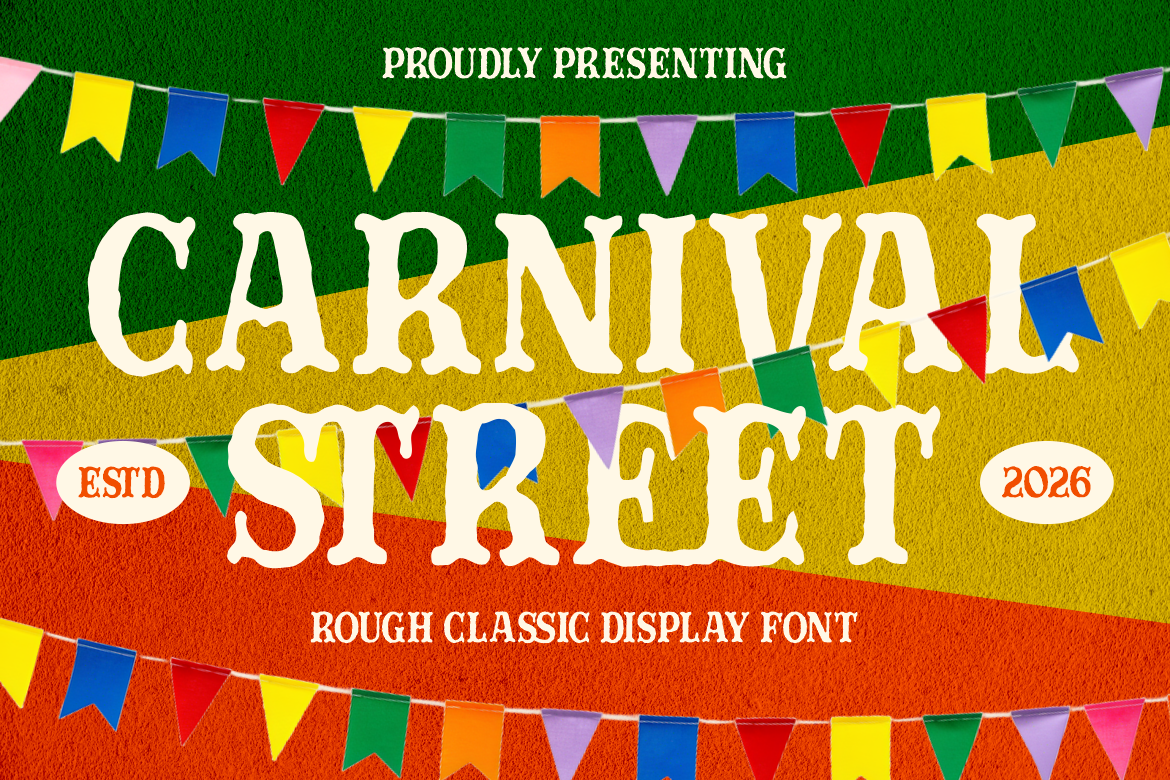
Carnival Street brings a decorative, handwritten-like aesthetic that adds richness to any design.
Best for:
- Certificates
- Invitations
- Artistic branding
It works especially well when you want a textured, expressive monogram.
5. Logoza – Artistic with a Classic Touch
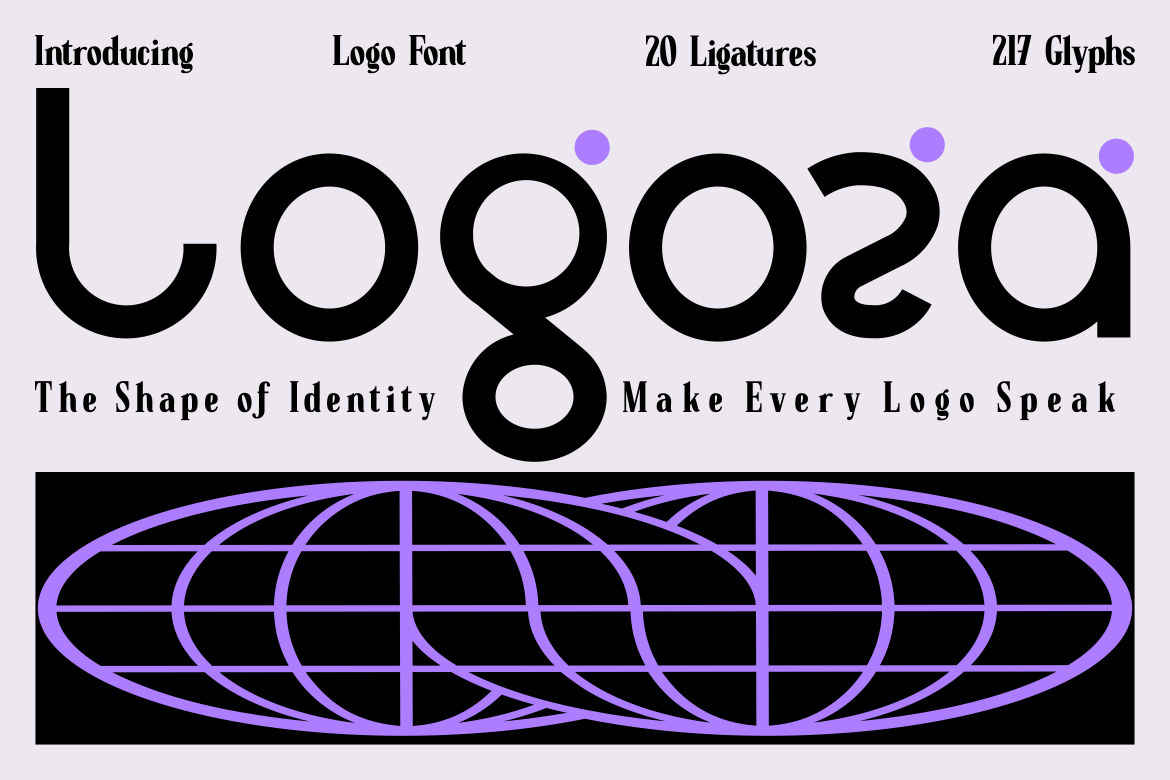
Logoza combines artistic expression with traditional serif structure. It feels both creative and grounded.
Best for:
- Literature branding
- Art-related projects
- Editorial design
This font is perfect for projects that require a balance between creativity and readability.
6. Styvia Logo Font – Elegant and Formal
Styvia is designed for sophistication. Its clean and structured look makes it suitable for professional environments.
Best for:
- Official documents
- Book monograms
- Corporate identity
It delivers a polished and authoritative appearance.
7. Floravine Romantic Script – Ornamental and Classic
Floravine features ornamental details that give it a traditional and decorative look. It’s rich in character.
Best for:
- Plaques
- Monuments
- Classic branding
This font stands out when you want something detailed and visually expressive.
8. Popdash Retro Psychedelic – Bold and Creative
Popdash offers a completely different direction with its bold and playful style. It’s less formal but highly distinctive.
Best for:
- Creative products
- Casual branding
- Youth-oriented designs
It’s perfect for projects that aim to break away from traditional elegance.
9. Yasira Script Arabic – Traditional and Expressive
This font brings cultural depth and artistic expression. Its flowing structure makes it visually unique.
Best for:
- Interior décor
- Cultural branding
- Signage
It adds authenticity and a strong identity to monogram designs.
10. Gothen Serif – Modern Classic Elegance
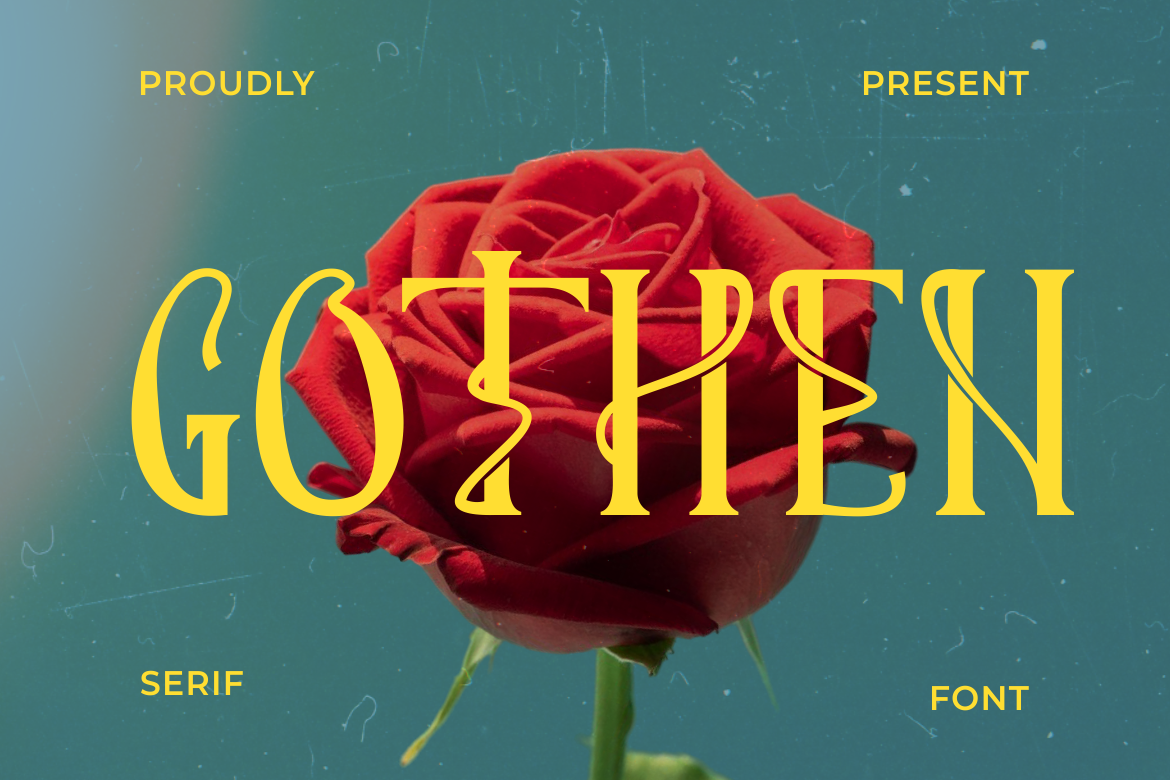
Gothen blends modern simplicity with classic serif elegance. It’s highly versatile and visually balanced.
Best for:
- Fashion branding
- Editorial layouts
- Premium logos
This font works well across both traditional and contemporary designs.
Quick Comparison Table
| Font | Characteristics | Best Use |
|---|---|---|
| Royal Display | Classic, bold lines | Formal logos |
| Gilded Glint | Elegant, romantic | Invitations |
| Metrolight | Soft, warm readability | Personal branding |
| Yasira Script | Traditional, expressive | Interior décor |
| Carnival Street | Decorative, luxurious | Certificates, invitations |
| Floravine | Ornamental, classic | Plaques, monuments |
| Gothen | Modern-classic, elegant | Fashion, editorial |
| Popdash Retro | Bold, artistic | Creative products |
| Styvia | Formal, elegant | Books, documents |
| Logoza | Artistic, classic | Literature, art |
How to Choose the Best Monogram Font
Selecting the right monogram font depends on your design goals and audience.
Define Your Style Direction
- Luxury → Serif fonts like Gothen or Gilded Glint
- Personal → Script fonts like Metrolight
- Creative → Display fonts like Popdash
Consider Application
- Logos need strong, scalable fonts
- Invitations benefit from decorative details
- Branding requires consistency across platforms
Focus on Simplicity
Since monograms use limited characters, avoid overly complex fonts that reduce clarity.
Common Mistakes to Avoid
- Using overly decorative fonts for small monograms
- Ignoring readability in favor of style
- Choosing fonts that don’t scale well
- Mixing too many styles in one design
A strong monogram is simple, clear, and visually balanced.
Why These Fonts Work
The fonts listed here are effective because they combine:
- Distinctive character for strong identity
- Readability across different sizes
- Versatility for multiple applications
This makes them reliable choices for both professional and personal design projects.
Final Thoughts
Monograms are a powerful design element that can instantly elevate a brand or personal project. Choosing the best monogram fonts ensures that your design looks polished, intentional, and memorable.
From classic elegance to bold creativity, each font offers a unique personality that can be tailored to your needs. Whether you’re designing a luxury logo, a wedding invitation, or a personal brand identity, the right font will always make a difference.